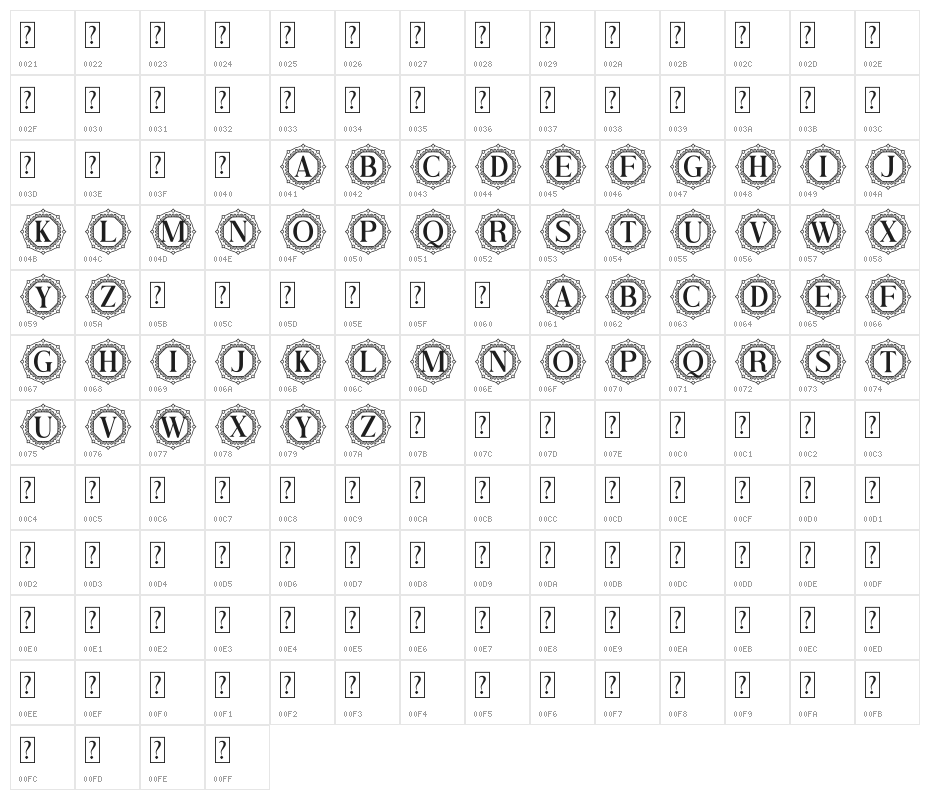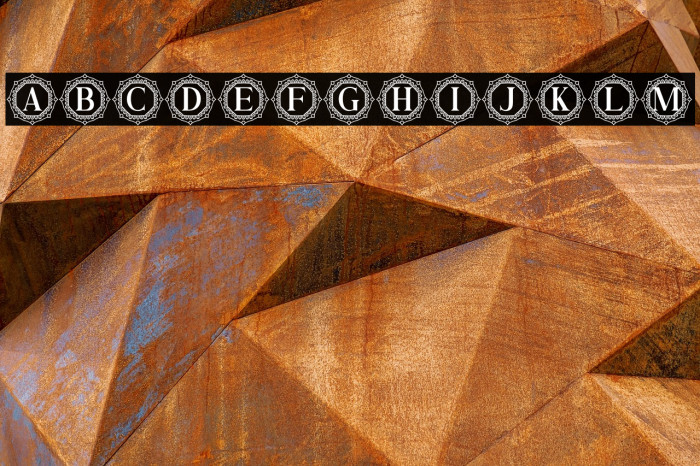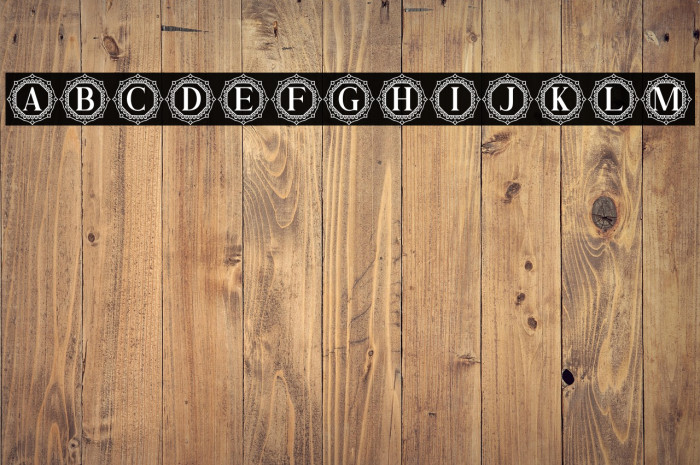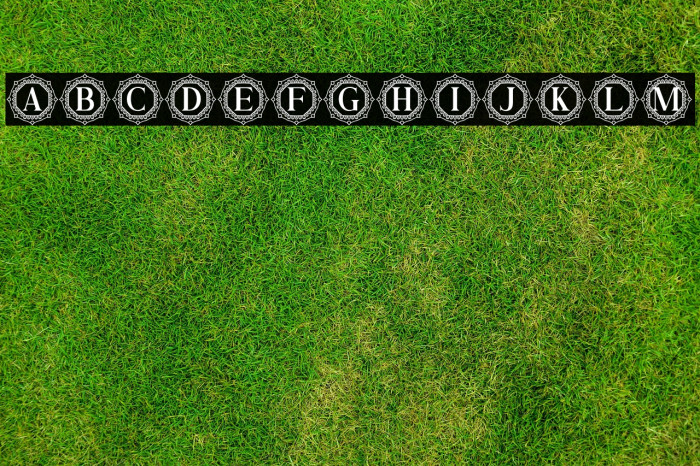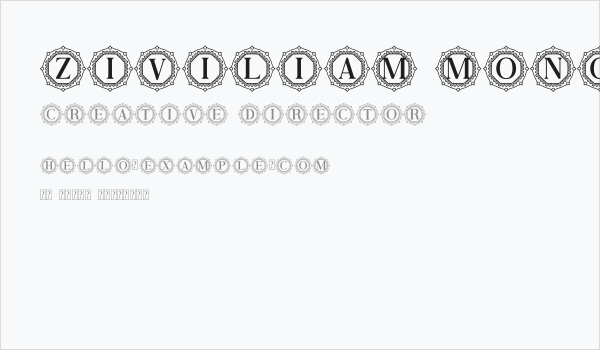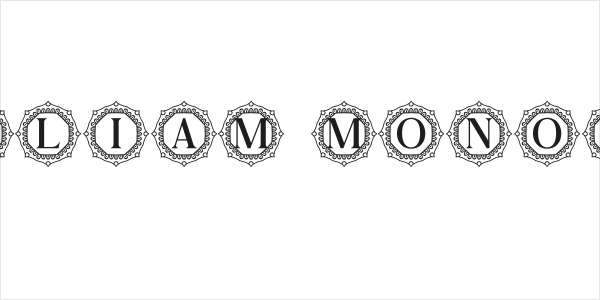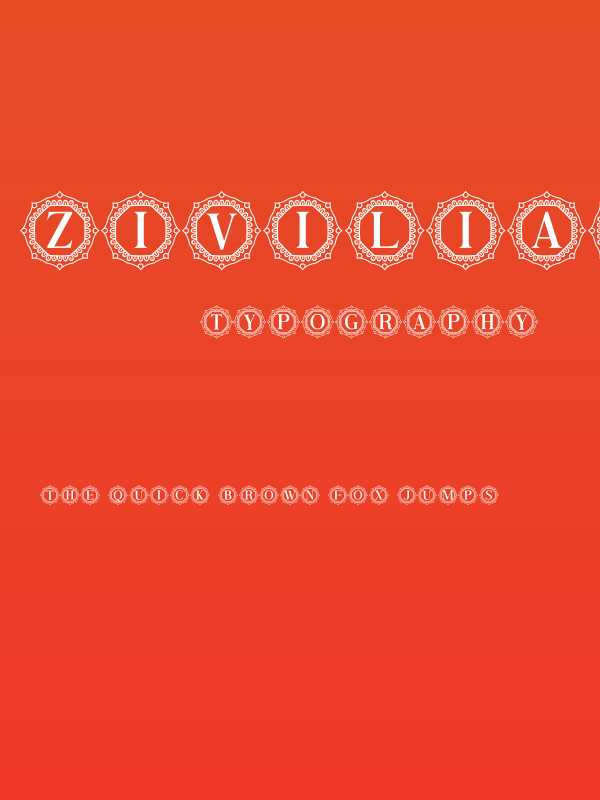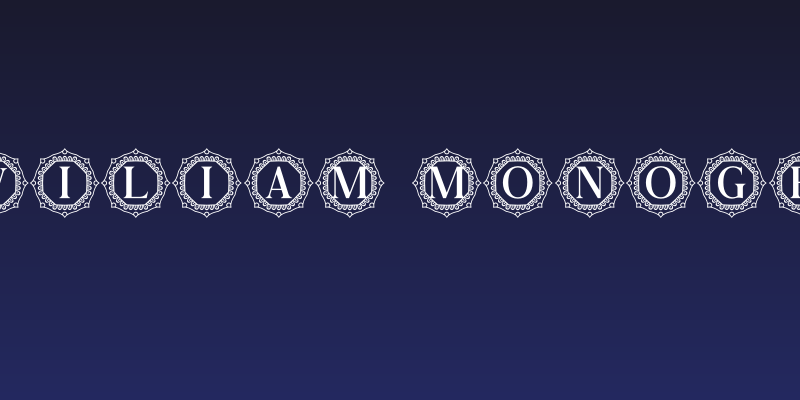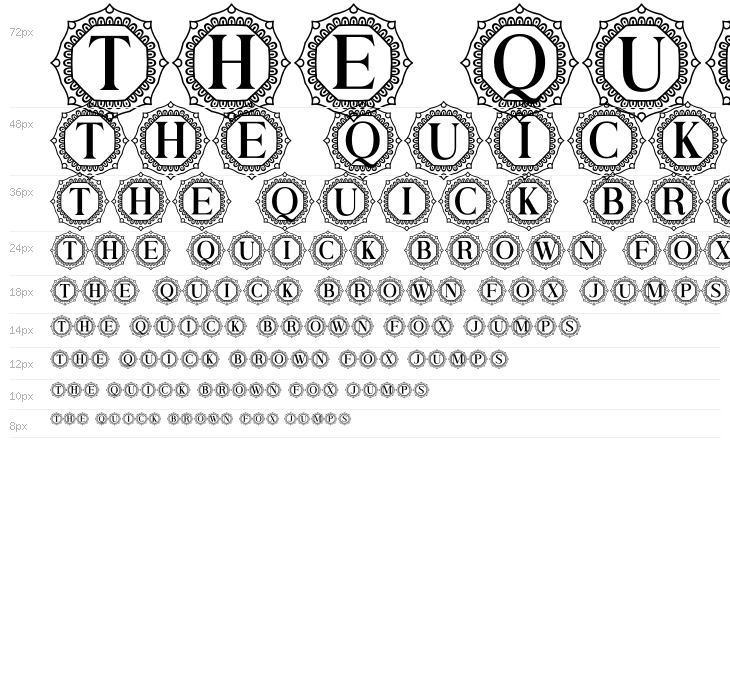
Ziviliam Monogram Font
Ziviliam Monogram Description
This font features uppercase letters encased in ornate, circular frames, giving it a distinct monogram style. Each letter is bold and prominently displayed within a decorative border that resembles a vintage emblem or seal. The intricate design of the border adds an element of sophistication and elegance, making it suitable for formal and high-end branding. The font does not include lowercase letters or numbers, focusing solely on the uppercase alphabet. The overall aesthetic is reminiscent of classic heraldry, making it ideal for projects that require a touch of tradition and grandeur.
| Overall Style | Vintage |
| Use Case | Logos, Invitations, Branding |
| Proposed Projects | Ideal for luxury branding, wedding invitations, monogram designs, and formal event materials. |